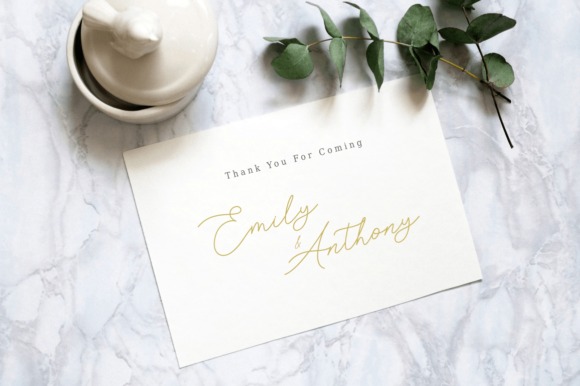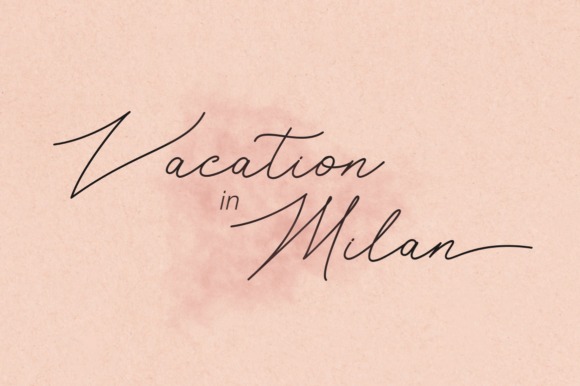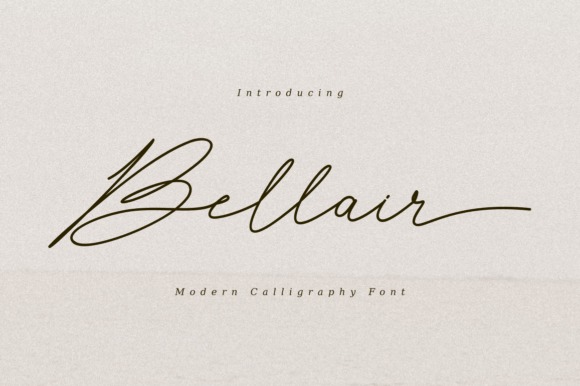
Bellair Script Font
This is an exquisite handwritten typeface, masterfully designed to become a true favorite. Made from font designer named The Grateful Studio. It is PUA encoded which means you can access all of the glyphs and swashes with ease! Fall for its classy style and use it to create gorgeous designs.